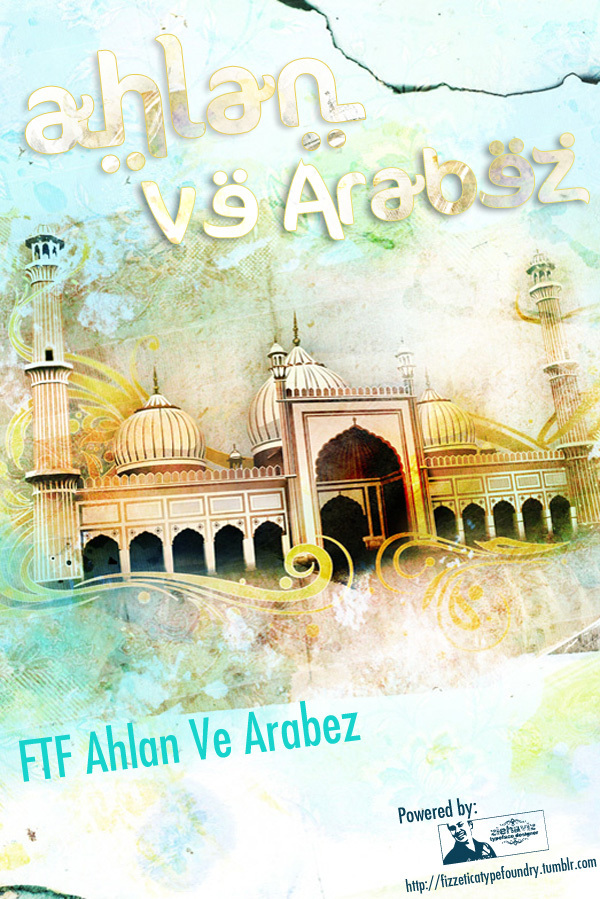
FTF Ahlan Ve Arabez, designed by Abdul Hafiz Hilman of Fizzetica Type Foundry DepokAsiana, is a free Arabic-inspired display font with a broad, rounded silhouette. Its strokes swell dramatically, then narrow into hooked joins and compact upright details at the top. Dots and paired marks are essential accents.
Packaging gives this lettering an immediate role in spice labels, restaurant branding, and confectionery ranges, where the soft curves and lively marks can echo ornamental product graphics. It can also shape festival posters and music artwork, using its unusual letterforms as part of a decorative border or emblem rather than neutral text.